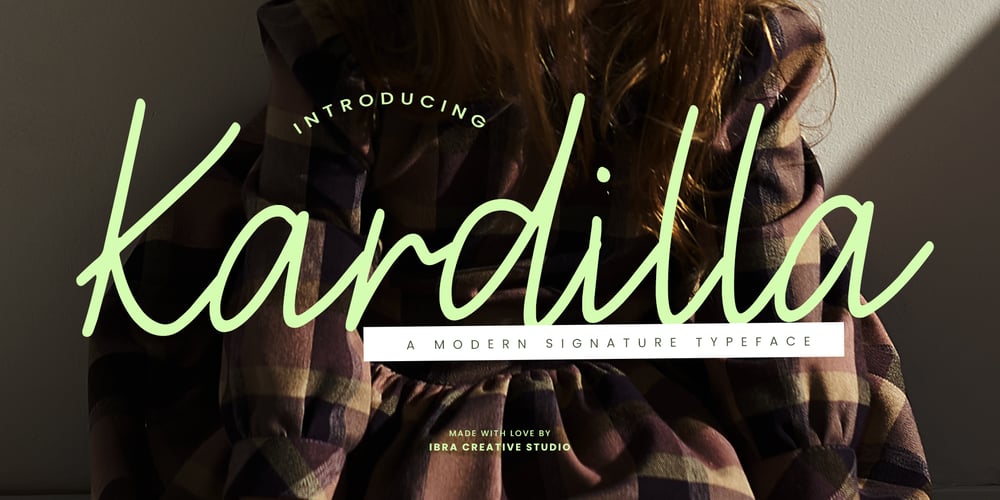
Kardilla Font Family was designed by Roisatul Azizah and published by IbraCreative. Kardilla contains 1 styles and family package options. Kardilla – A Modern Signature Typeface Kardilla, a modern signature typeface, exudes an effortless blend of sophistication and individuality, making it the epitome of contemporary elegance. With its flowing, calligraphic strokes and meticulous attention to detail, Kardilla brings a personalized touch to any project. The typeface’s graceful curves and dynamic rhythm create a distinctive and fluid signature style, enhancing the visual appeal of logos, invitations, and other design endeavors. Kardilla is a versatile choice, striking the perfect balance between modern aesthetics and timeless charm, ensuring that each character leaves an indelible mark of refinement and personality in the world of typography.Kardilla is perfect for branding projects, logo, wedding designs, social media posts, advertisements, product packaging, product designs, label, photography, watermark, invitation, stationery, game, fashion and any projects.Fonts include multilingual support for; Afrikaans, Albanian, Czech, Danish, Dutch, English, Estonian, Finnish, French, German, Hungarian, Italian, Latvian, Lithuanian, Norwegian, Polish, Portuguese, Slovak, Slovenian, Spanish, Swedish.